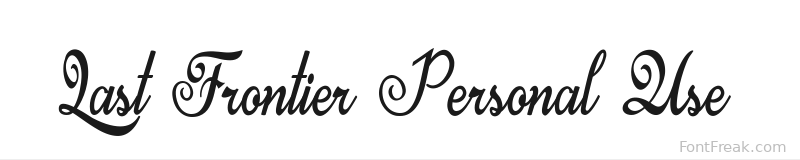
Last Frontier Personal Use
The Last Frontier Personal Use font by Billy Argel Fonts is an elegant script typeface that captures a sense of whimsy and charm. This decorative font showcases a flowing style characterized by its graceful curves and delicate strokes. The varying stroke weight adds an inviting contrast, creating a sense of movement that draws the eye. Its moderate spacing ensures readability, making it suitable for various applications while maintaining its artistic flair.
This font is ideal for a range of creative projects. Wedding invitations can benefit from its romantic aesthetic, adding a touch of elegance to any formal announcement. Additionally, Last Frontier is perfect for movie posters, where its artistic qualities can evoke the excitement and drama of the film. It also shines in restaurant menus, where it can enhance the dining experience with a touch of sophistication. Small business owners can use this font for branding purposes, such as logos and packaging, to create an appealing and memorable identity.
What sets Last Frontier apart is its balance of elegance and playful creativity. The fluidity of its design invites users to explore their artistic potential, making it a versatile addition to any designer's toolkit. Whether you’re crafting a heartfelt invitation or designing an eye-catching advertisement, this font will undoubtedly leave a lasting impression. With its distinct style and accessibility, Last Frontier is a standout choice for anyone looking to add a touch of sophistication to their work.